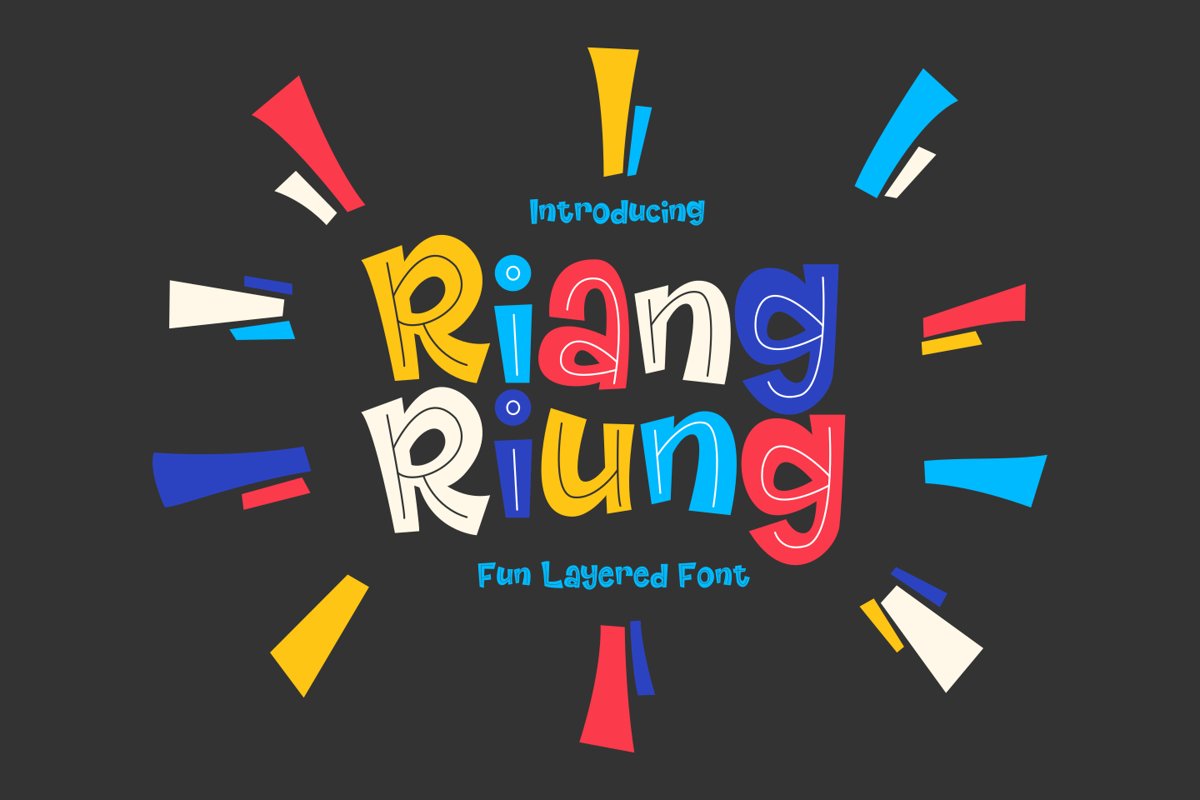
Riangriung - Fun Layered Font
Hi Fellas ! Happy Black Friday ! This time we presenting to you Riangriung a Fun Layered Font. Which is very suitable for many needs like ads,logo,title,book cover,branding,etc.
Riangriung also comes with 4 different styles also each style come with uppercase, lowercase, numerals, accents (Multilingual characters), punctuations and PUA Encoded Characters !.